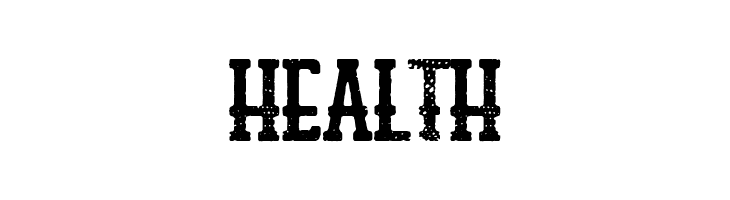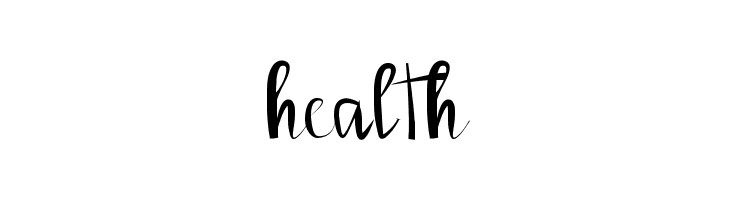
A modern, bold, and italicized font with smooth curves and clean lines.
A sleek, modern italic font with smooth curves and clean lines.
A clean, modern font with uniform stroke width and balanced spacing.
A modern, light, and slightly italic font with a clean and elegant style.
A cursive, handwritten font with elegant and flowing lines.
An elegant script font with flowing, cursive letters and high contrast strokes.
A playful and whimsical font with a blend of script and decorative styles.
A bold, distressed slab serif font with a vintage, rugged appearance.
An elegant and sophisticated script font with intricate flourishes.
A playful, hand-drawn font with rounded edges and a quirky style.